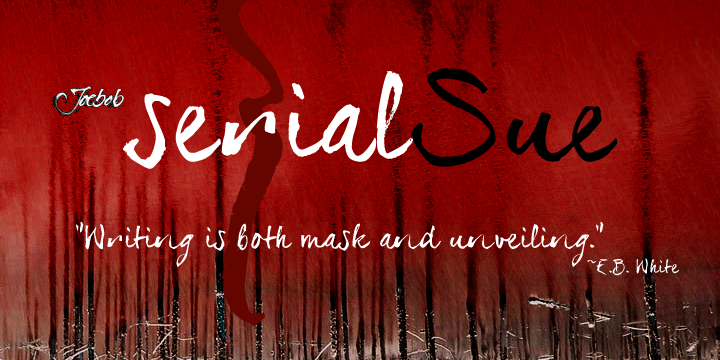
You can use Serial Sue Font in mystery novel covers, vintage-style posters, horror movie titles, game graphics, escape room branding, and any design that needs a suspenseful or retro touch.
What makes this font so exciting is its quirky, handwritten aesthetic combined with eerie, thriller-inspired undertones. It brings a cinematic edge to your designs, as if each letter holds a secret—or a clue. It’s the perfect typeface for capturing curiosity and building atmosphere.
Serial Sue Font comes in several creative variations such as Regular, Slanted, Rough, and Outline. This family of styles gives you flexibility for layering effects or creating dynamic, narrative-driven layouts.